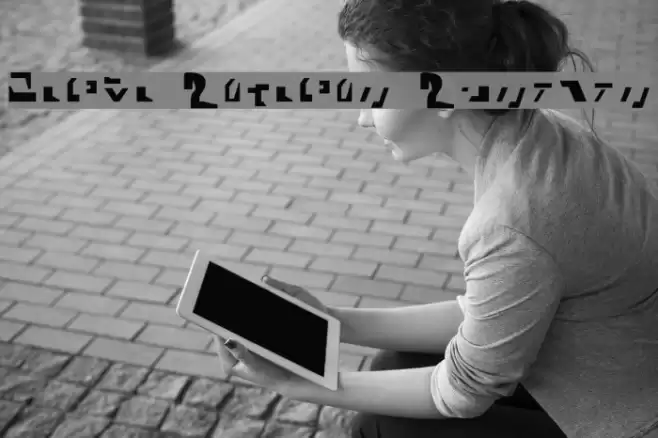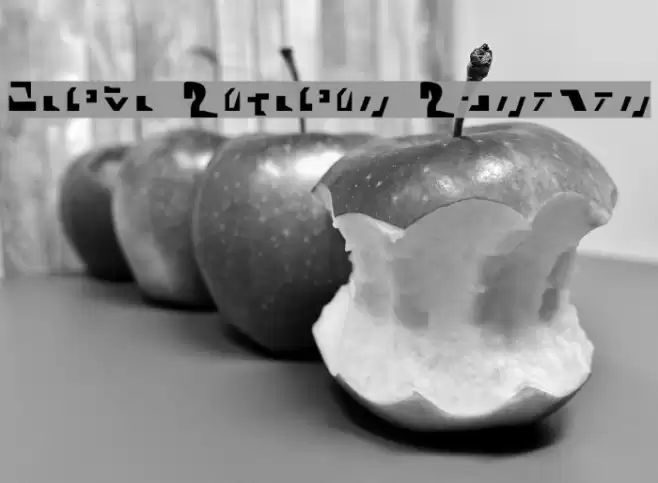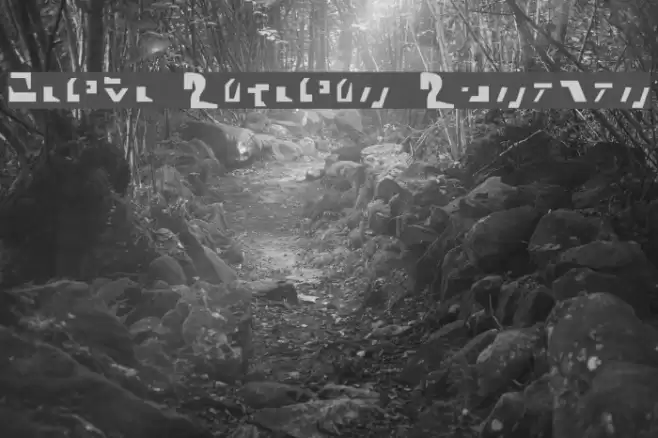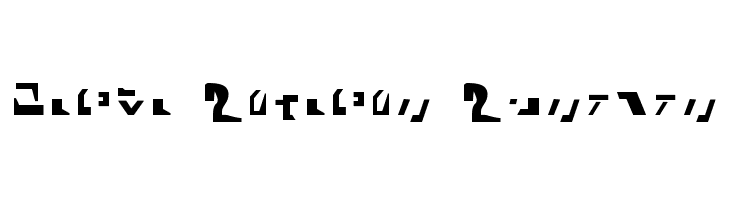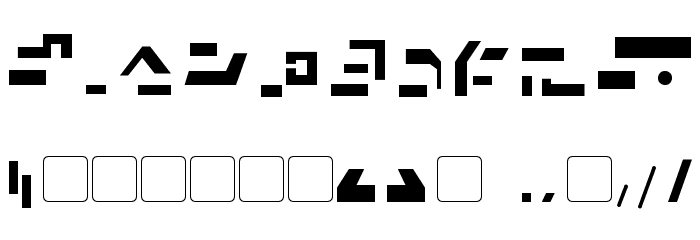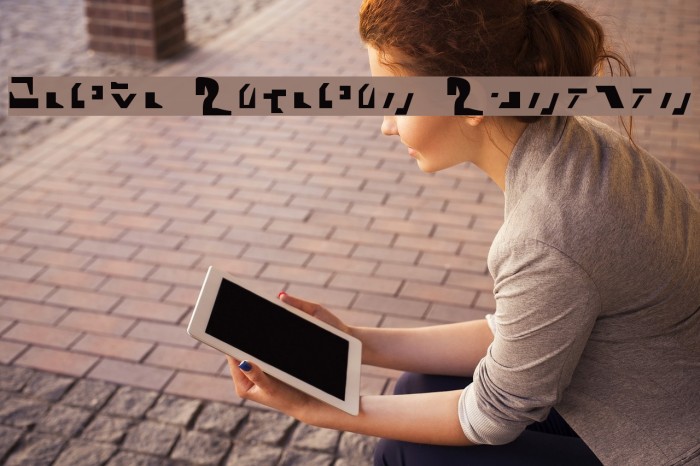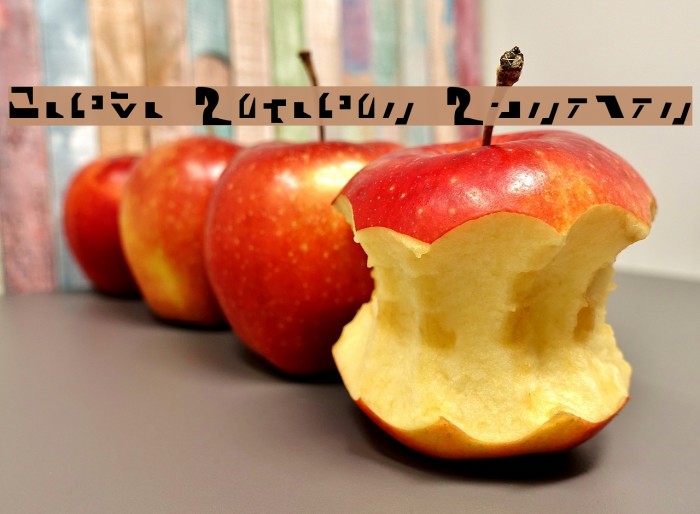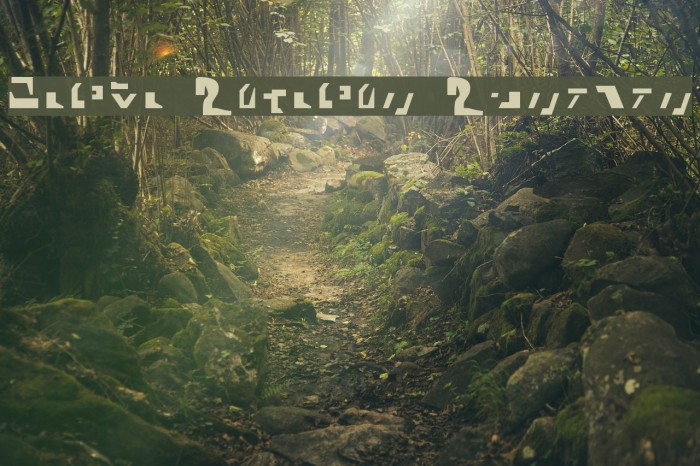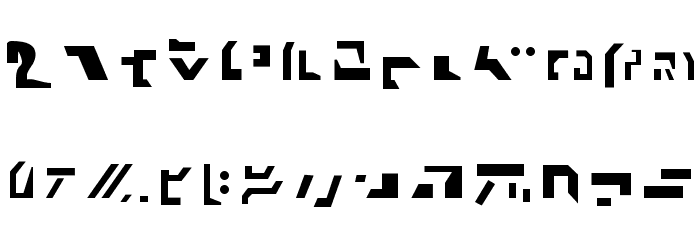
Giedi Ancient Autobot Font
Giedi Ancient Autobot Description
This font features a highly stylized, futuristic design reminiscent of ancient scripts with a modern twist. The characters are composed of bold, geometric shapes with sharp angles and clean lines, creating a sense of technological advancement and mystery. The overall appearance is both decorative and functional, suitable for projects that require a unique and eye-catching typeface. The font's distinctiveness lies in its ability to convey a sense of otherworldliness while maintaining legibility. It is ideal for creative projects that aim to stand out, such as sci-fi themed designs, video game interfaces, or branding for tech companies.
A futuristic, geometric font with bold, angular shapes and a mysterious, ancient script vibe from Uncategorized fonts.
- Proposed Projects: Ideal for sci-fi themed designs, video game interfaces, tech branding, and creative projects seeking a unique look.
- Overall Style: Futuristic, Decorative